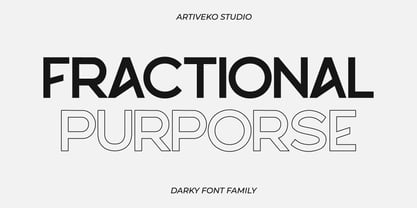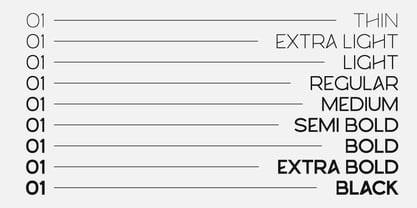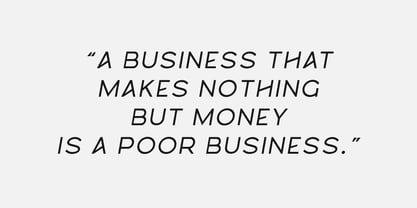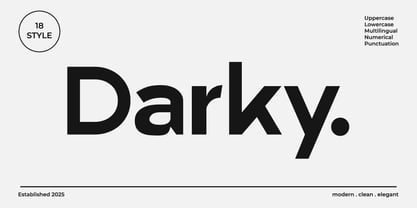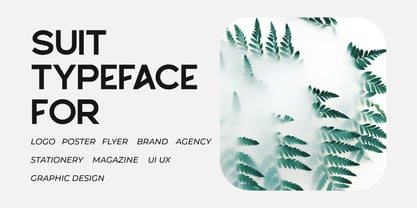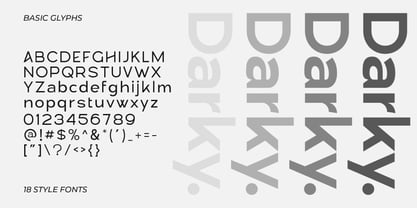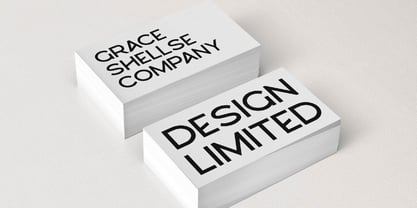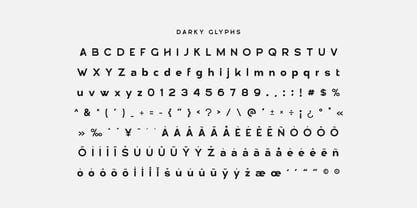
Darky
by Artiveko
The Darky Font Family was designed by Iwan Alwan and published by Artiveko. Darky contains 18 styles and family package options. More about this family
Darky is a modern sans serif font family crafted to bring versatility and style into your design toolbox. With its clean construction and contemporary appeal, Darky performs brilliantly across various branding needs — from logos and packaging to website headers and editorial layouts. This font family includes multiple weights, allowing you to mix and match styles for maximum visual hierarchy and impact.
Designed with both readability and aesthetics in mind, Darky strikes the perfect balance between functionality and personality. Its sharp terminals and sleek proportions make it ideal for modern businesses, creative agencies, and tech startups looking to stand out. Whether you're creating minimalist branding or high-impact social media graphics, Darky delivers with confidence.
Designers: Iwan Alwan
Foundry: Artiveko